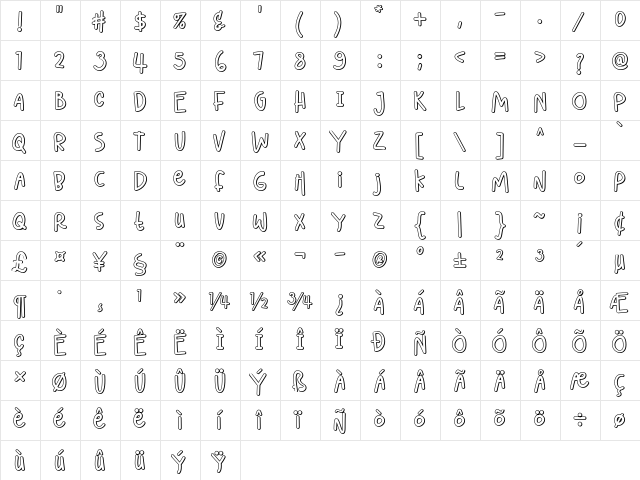
Lighthearted Pleasure Shadow Regular Font Preview
| Foundry | 7NTypes |
| Designer | Keithzo; Situjuh Nazara |
Design Context for Lighthearted Pleasure Shadow Typeface
Lighthearted Pleasure Shadow is built around its visual character rather than neutral utility — its distinctive forms are designed to make an impression at display sizes. Its slender proportions lend an understated elegance to any composition.
Font Pairing: Pair with a clean neutral sans-serif for body copy to let Lighthearted Pleasure Shadow's character lead without overwhelming the composition.
Pro Tip: Treat Lighthearted Pleasure Shadow as the centrepiece of your typographic hierarchy. One strong heading set in a decorative face can carry an entire layout.